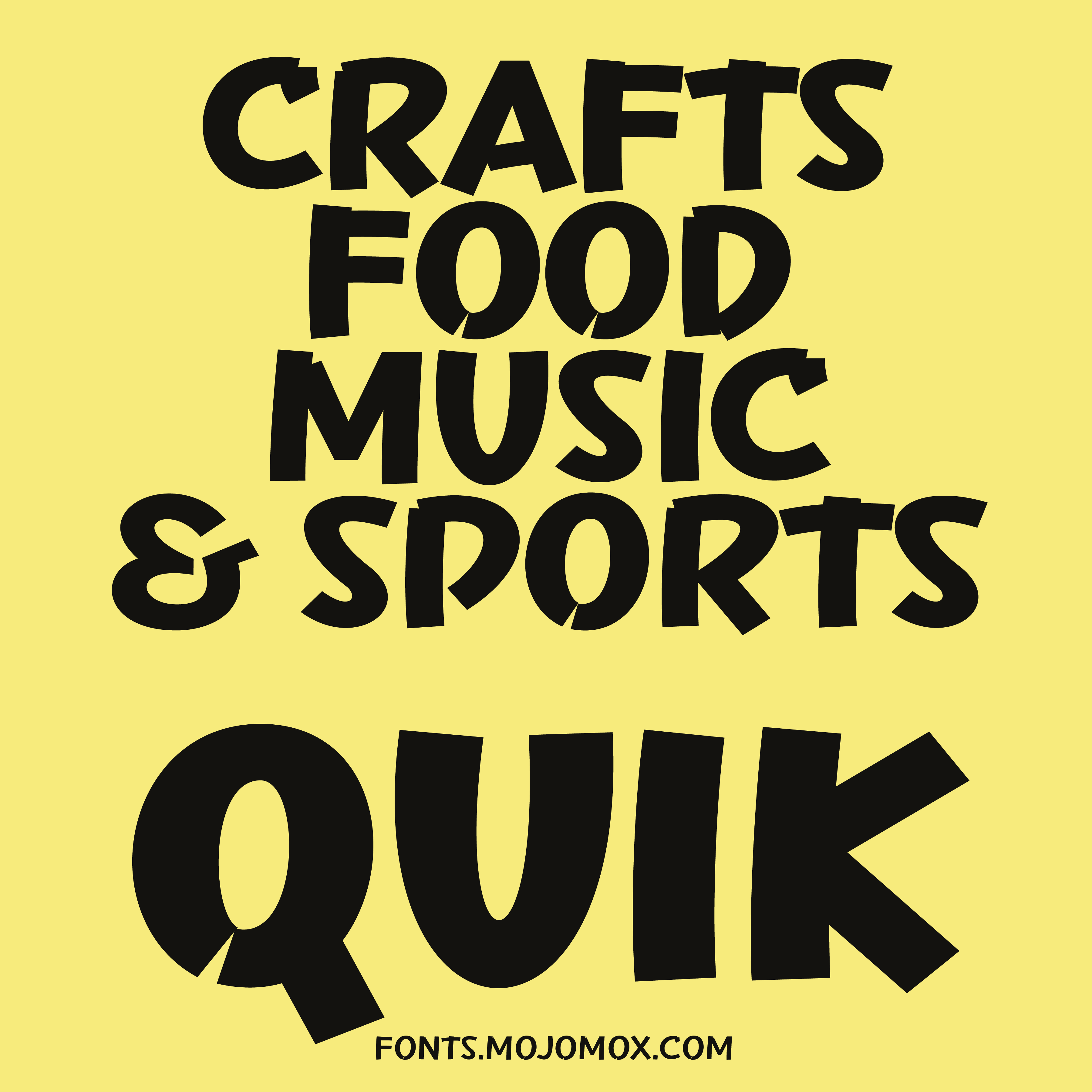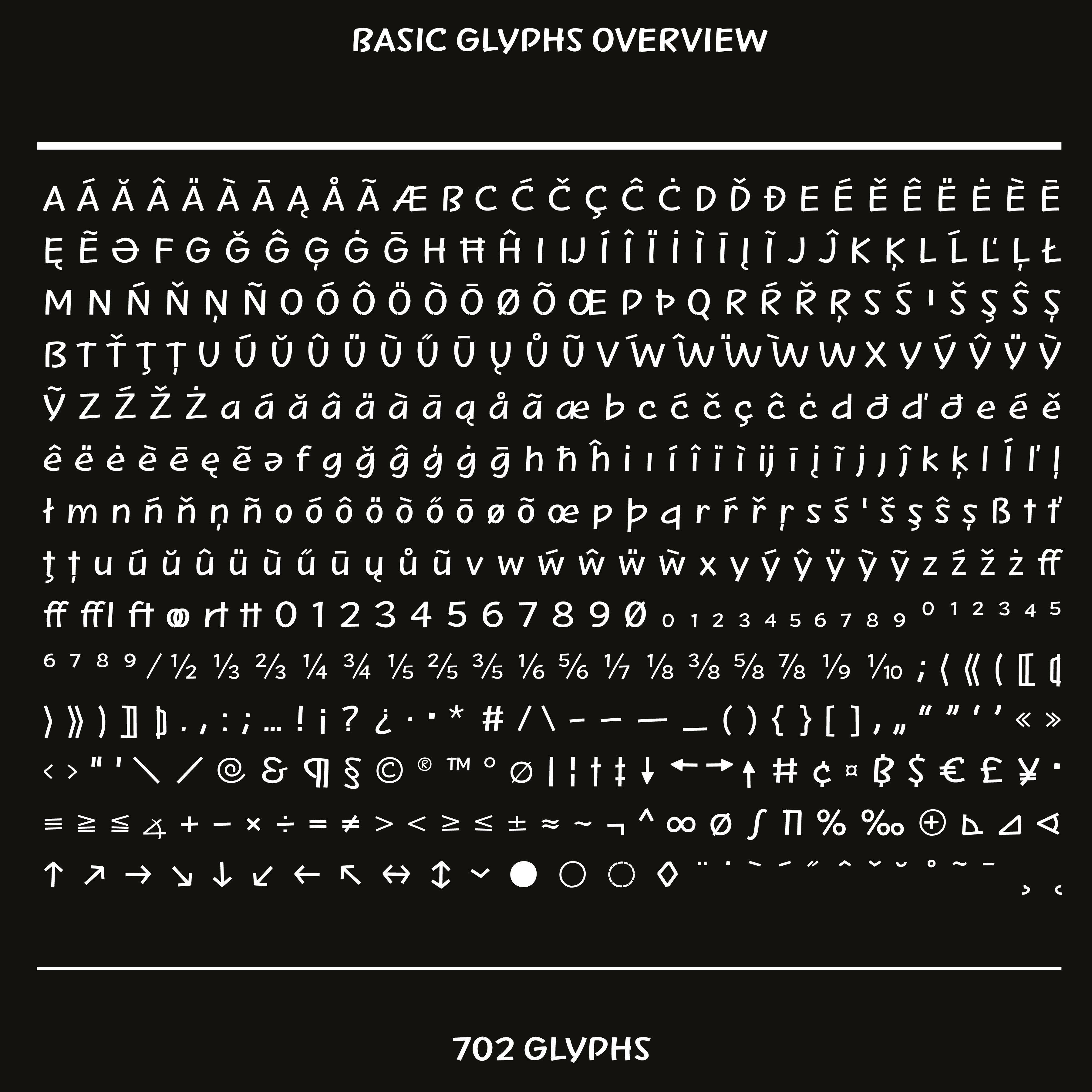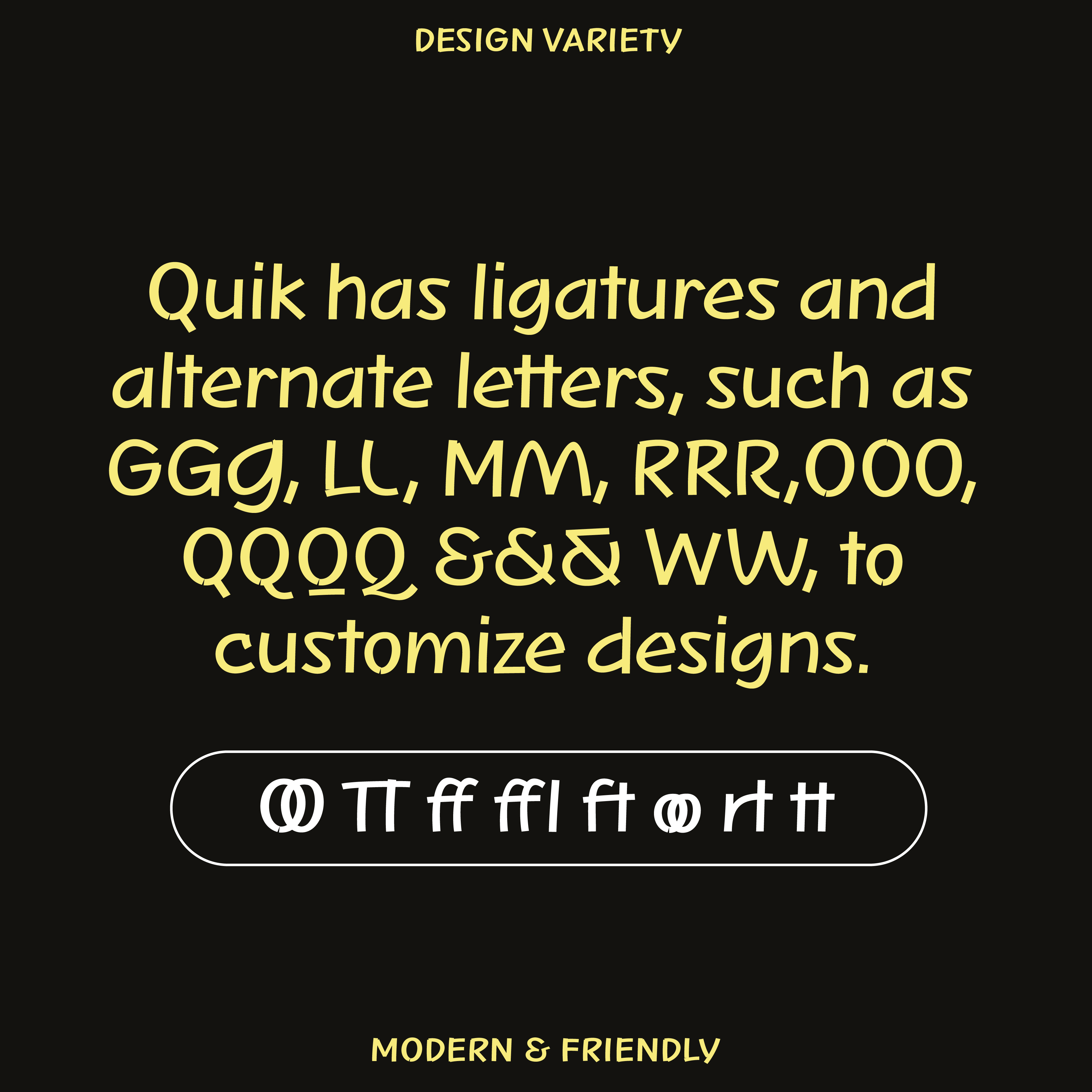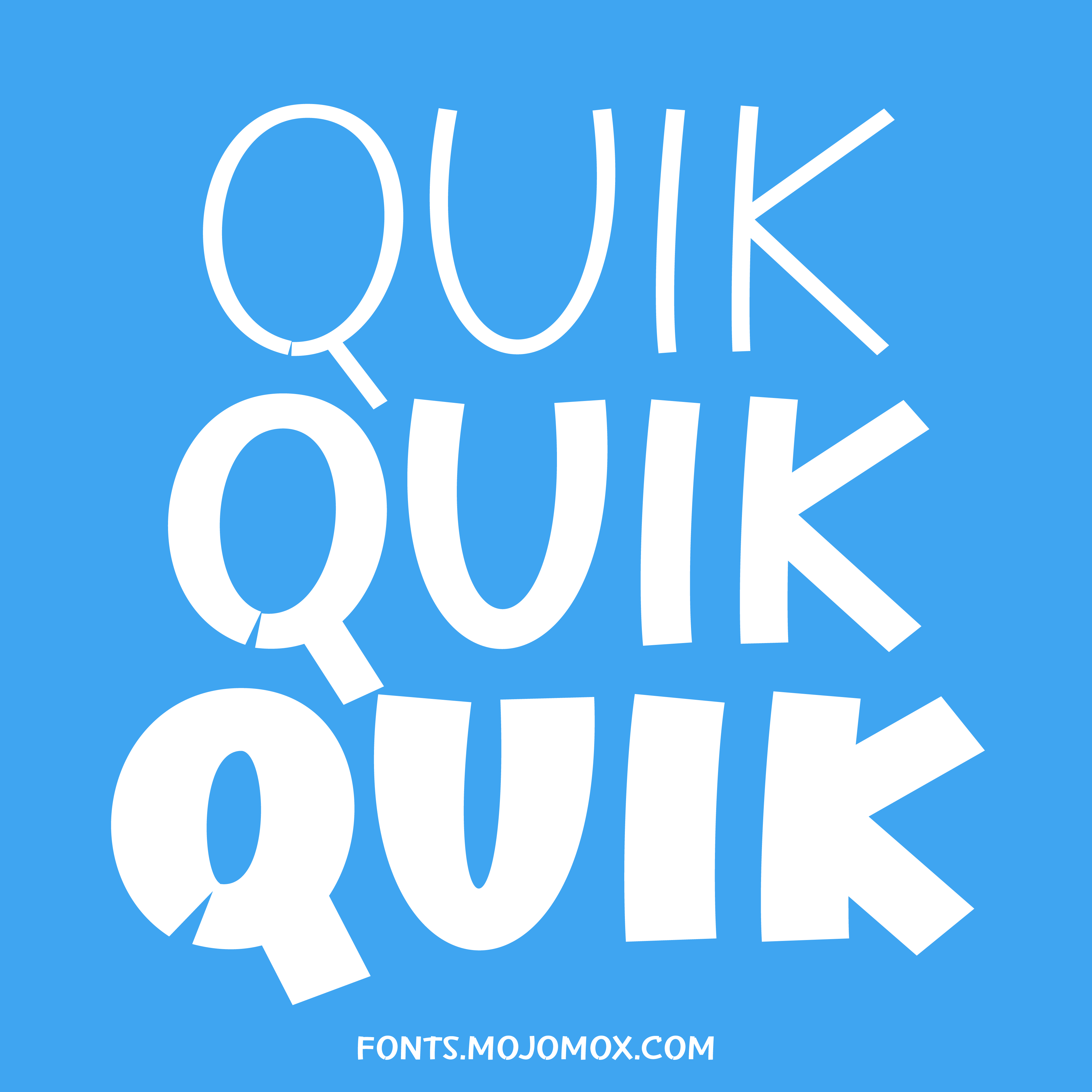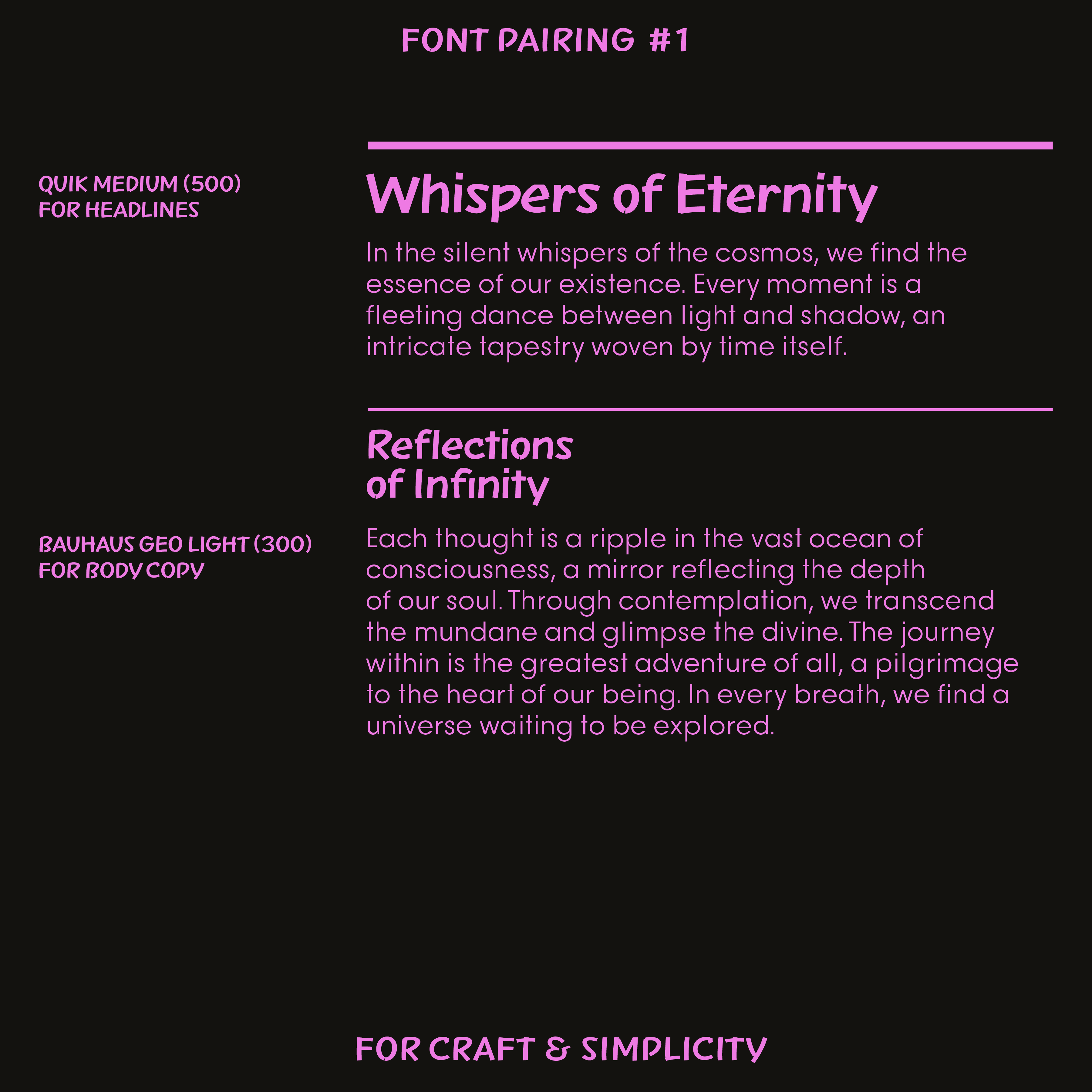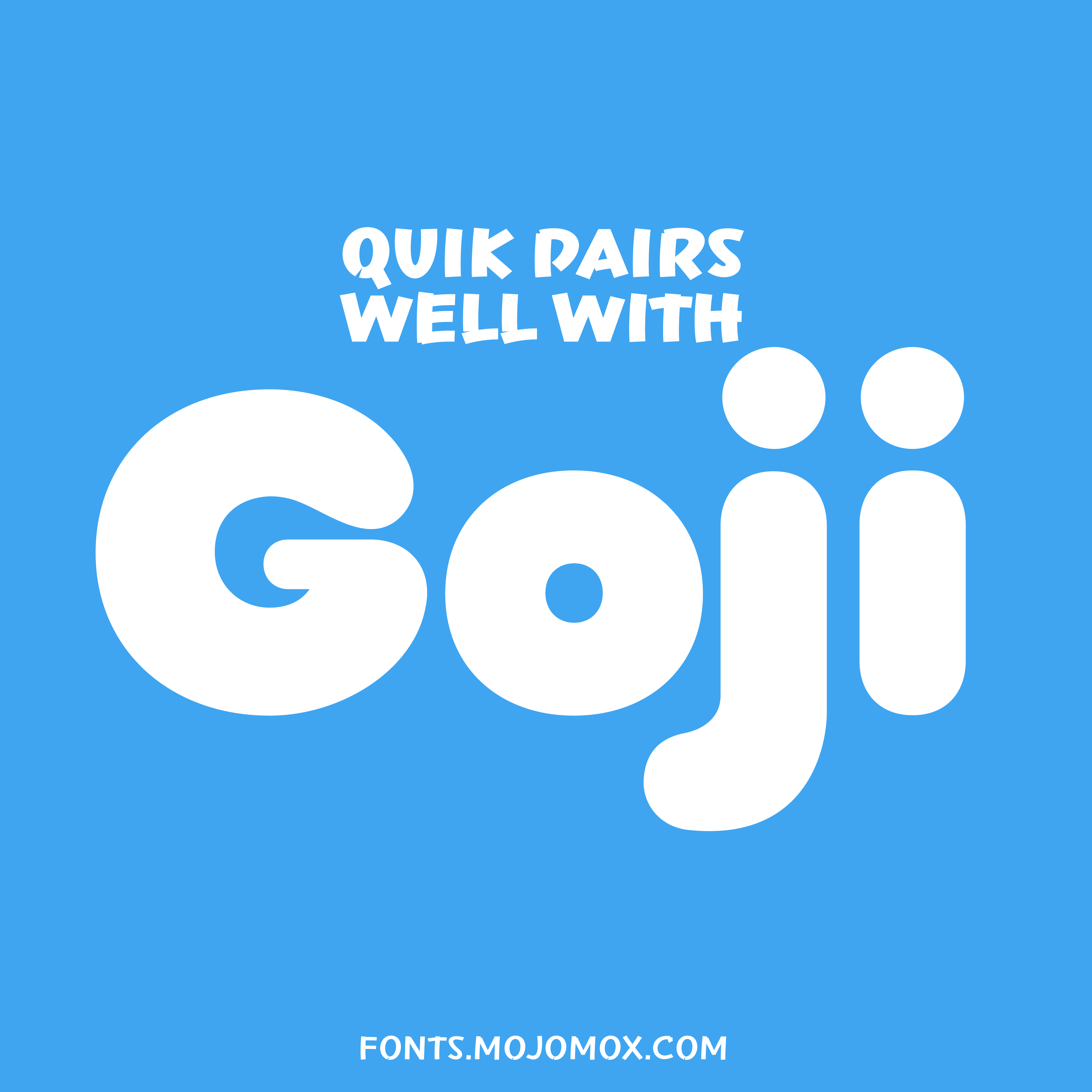
Quik—Bold Handwritten Font, Flat Terminals
About Quik · Marker font · Handwritten
Quick marker strokes.
Fun marker font for branding, titles, and body copy. Quik is a playful and expressive font. Quik features modern marker-style letters for a dynamic design quality, for crafts, food, music, and sports branding. Spontaneous and organic in lighter styles, and energetic, urban in bolder styles. Quik works great in both lowercase & uppercase for logos and titles. Quik has many ligatures & alternate letters to create unique designs. Quik pairs well with Geo, Goji, Edde, and Loco. Available in 9 font weights. For the entire font family, select it from the Font Weight dropdown above.
On kids’ products, retro posters and silly party signs, the marker strokes look friendly and whimsical.
Good for
- Crafts
- Food
- Music
- Sports
- Kids’ products
- Party signs